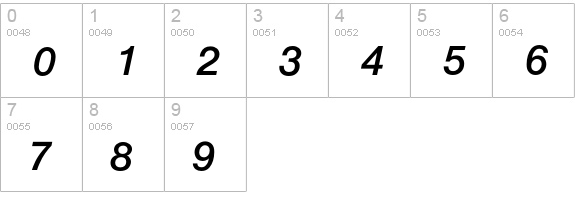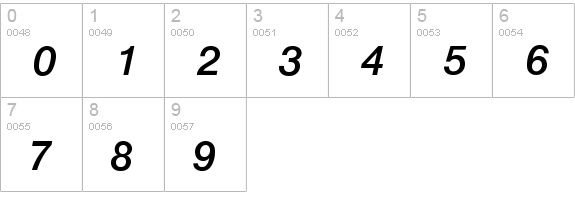
Olnova-DemiBoldIta Font Details
Olnova-DemiBoldIta font is a stunning display typeface that exudes elegance and sophistication with its bold yet graceful design. This versatile font is perfect for creating eye-catching headlines, posters, branding materials, and more. Its distinctive italicized style adds a touch of modernity and flair to any project. What sets Olnova-DemiBoldIta font apart is not just its striking appearance, but also the fact that it is available for free download at FontsMarket.com. This means that you can easily access this premium font without any cost, making it a valuable addition to your design toolkit. Whether you're a seasoned designer or a creative enthusiast, Olnova-DemiBoldIta font is sure to elevate your projects and help you stand out from the crowd.